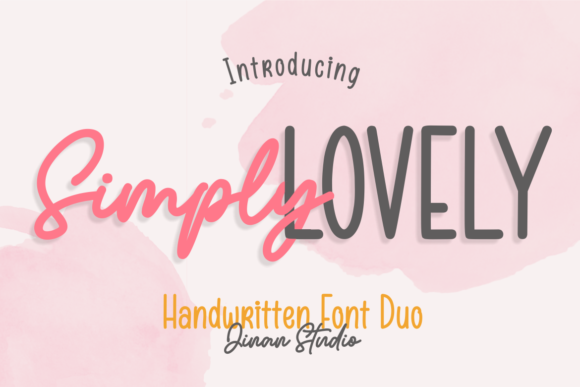
Introducing Simply Lovely Font, the ultimate choice for adding a touch of elegance and romance to your creative projects! Crafted by the talented designer jinanstd, this font duo combines a script and sans serif to offer a versatile and stunning collection of typefaces.
Whether you are designing a cake logo or working on a special greeting card, Simply Lovely Font is your perfect companion. Its delicate script style exudes sophistication, while the sans serif option adds a contemporary twist, giving you endless possibilities to create visually captivating and unique designs.
With Simply Lovely Font, you can effortlessly evoke emotions and create a lasting impression. The graceful curves and intricate details of the script font will transport your audience to a world of beauty and charm. Each letter flows seamlessly into the next, creating a seamless and harmonious visual experience.
Looking to add some personality to your headlines? Simply Lovely Font is here to elevate your typography game. Its exquisite strokes and flourishes lend an air of sophistication and allure to any text, making it impossible for your audience to look away.
But this font duo is not just about aesthetics. It is also designed to enhance the readability of your text, ensuring that your message is conveyed effortlessly. The carefully selected letterforms and spacing guarantee legibility, making it a practical choice for a wide range of applications.
Simply Lovely Font is more than just a collection of letters – it is a gateway to creativity and inspiration. Allow its captivating charm to ignite your imagination and take your design projects to new heights. Whether you're a professional designer or a DIY enthusiast, this font duo will empower you to create stunning visuals that leave a lasting impression.